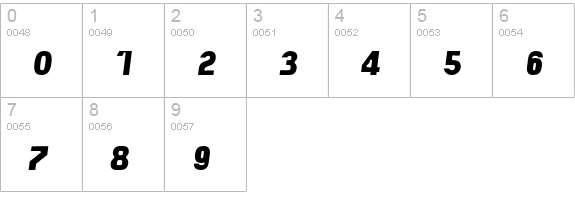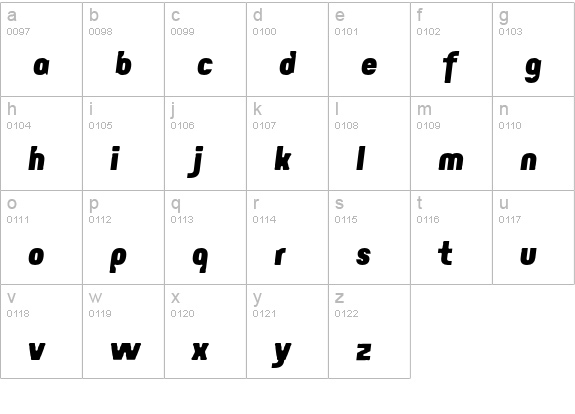
Eunuverse-ExtraBoldItalic Font Details
Eunuverse-ExtraBoldItalic font is a stunning display typeface that exudes power and sophistication. Its bold and italic design commands attention and adds a touch of elegance to any project. The unique curves and angles of the letters create a dynamic and modern look that is perfect for headlines, titles, and branding. What sets Eunuverse-ExtraBoldItalic font apart is not only its striking appearance but also its versatility. Whether used in print or digital designs, this font stands out and makes a statement. Its strong presence makes it ideal for logos, posters, packaging, and more. And the best part? Eunuverse-ExtraBoldItalic font is completely free to download at FontsMarket.com. You can easily access this high-quality typeface and elevate your designs without breaking the bank. Don't miss out on the opportunity to enhance your projects with the bold and stylish Eunuverse-ExtraBoldItalic font today!